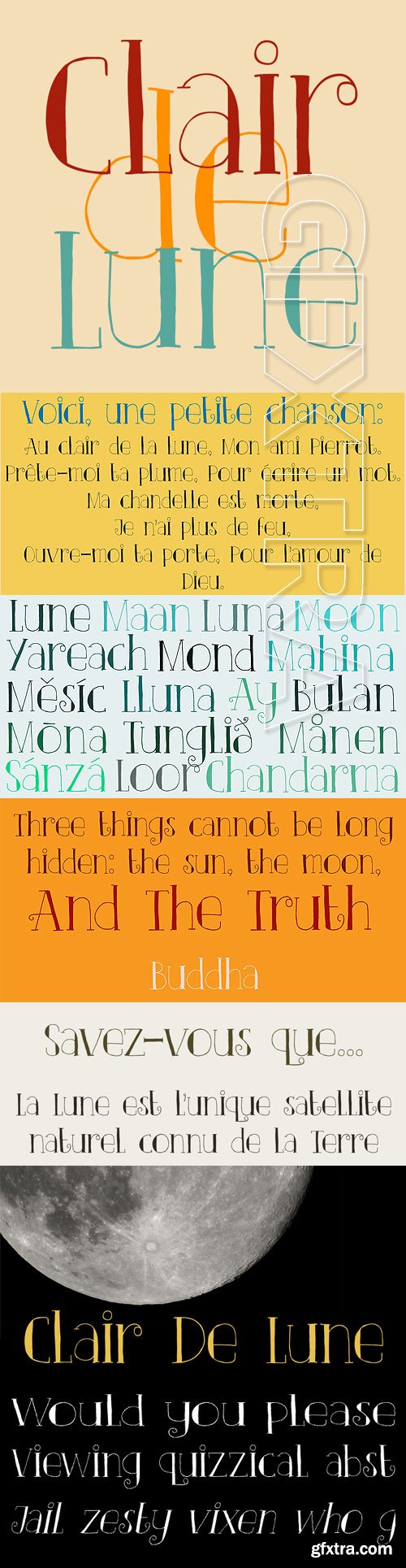
- Clair De Lune is part of the famous Suite Bergamasque, written by Claude Debussy in 1890, and published in 1905. It means Moonlight in French, a kind of romantic name. The name is exactly what I had in mind for this übercute font. Clair De Lune can be used to design postcards and posters, liven up websites and give your designs an overall happy feel. Clair De Lune was handmade using a 0.5 pen, eco friendly Italian paper and a wooden kitchen table.
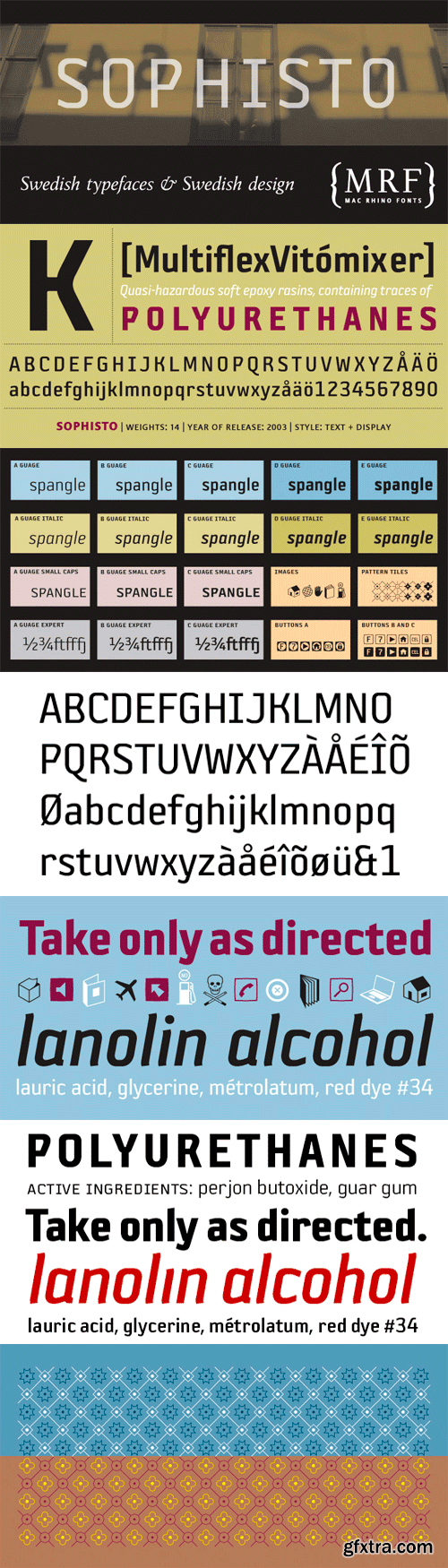
A successful collaboration between MRF and Psy/Ops Type Foundry. In search for a Sans Serif with a significant and strong character but still ”low-key” enough to be functional for most areas, Sophisto finally grew into an extensive family of 21 parts. Made carefully to fit both text- and display solutions. The buttons, images and patterns makes it even more complete as a family.
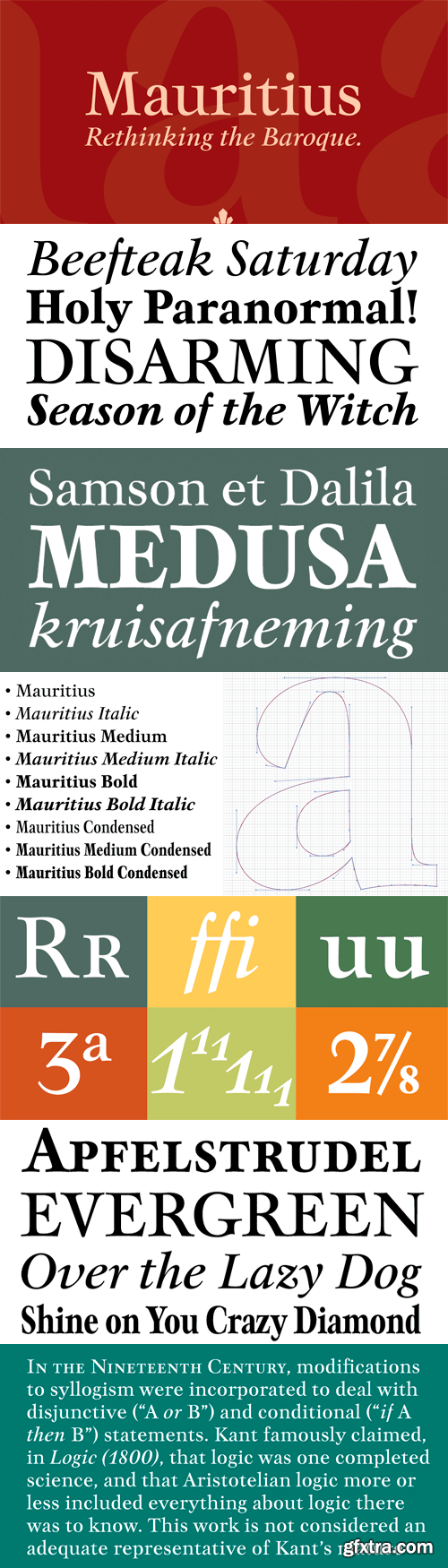
Ten years or so after his unique treatment of Garalde design with Trump Mediaeval, Georg Trump took on the transitional genre with Mauritius, which was to be his last typeface. He started working on it in 1965. The Stuttgart-based Weber foundry published a pamphlet previewing it under the name Barock-Antiqua in 1967, then announced the availability of the metal types (a roman, a bold and an italic) a year later. The global printing industry was already in third gear with cold type technology, so there weren't that many takers, and Weber closed its doors after more than 140 years in business. Subsequently, Trump’s swan song was unfairly overlooked by typography historians and practitioners. It never made it to film technology or scalable fonts. Thus, one of the most original text faces ever made, done by one of the most influential German type designers of the 20th century, was buried under decades of multiple technology shifts and fading records. The metal cuts of Mauritius seem to have been rushed in Weber’s desperation to stay afloat. So the only impressions left of the metal type, the sole records remaining of this design, show substantial problems. Some can be attributed to technological limitations, but some issues in colour, precision and fitting are also quite apparent, particularly in Mauritius Kursiv, the italic metal cut.
The font Marcel is named in honor of Marcel Heuzé, a Frenchman who was conscripted into labor during World War II. During the months Marcel was in Germany, he wrote letters to his beloved wife and daughters back home in rural France. Marcel’s letters contain rare first-person testimony of day-to-day survival within a labor camp, along with the most beautiful expressions of love imaginable. The letters — stained and scarred with censor marks — were the original source documents used by designer Carolyn Porter to create a script font that retains the expressive character of Marcel Heuzé’s original handwriting. The result of years of research and design work, Marcel Script features more than 1300 glyphs. The font is a highly readable running script that includes textural details that capture the look of ink on paper. The font Marcel Caps is a hand-lettered titling face intended as a companion to the Script. Marcel EuroPost One and Two each feature more than 200 postmarks, cancellation and censor marks, and other embellishments found on historical letters and documents.
This slab serif font is inspired by European industrial, machine-made letters. It looks rational and geometric, but optically corrected and balanced. As the name says this font face is designed to be used by mostly for posters, headlines, visual identities and short texts. Font was created for Celebration of the 5 year anniversary of Design Studio Box from the city of Kragujevac (KG), the industrial city of Serbia. Posterizer KG contains all the Latin and Cyrillic glyphs.
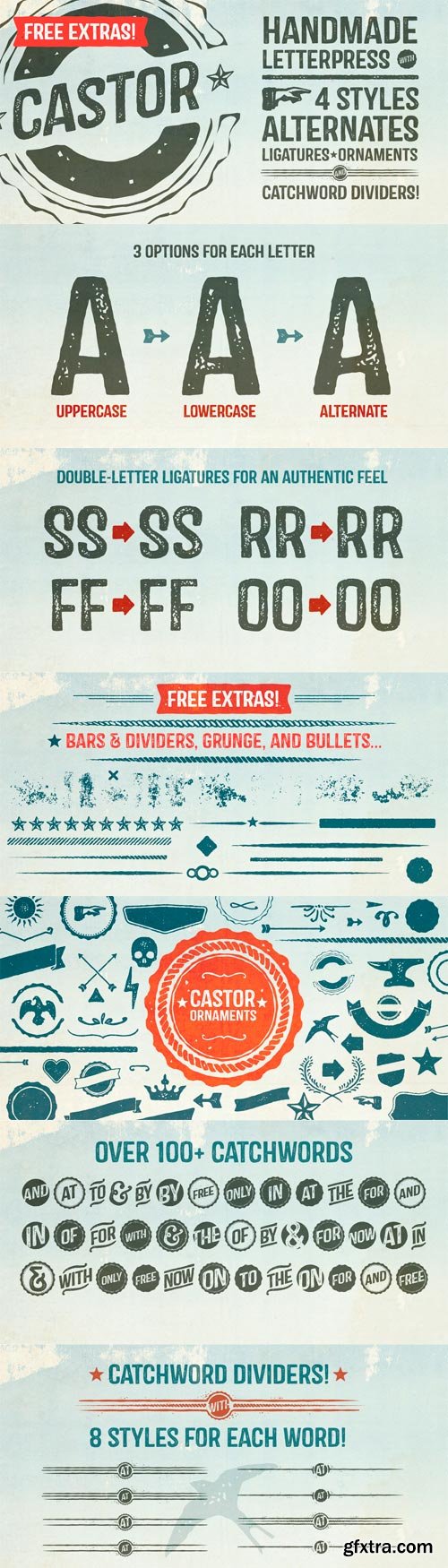
Castor is a woodtype and letterpress hybrid based on grotesque letterforms. It’s a vintage decorative bold distressed display with 3 options for each letter; Uppercase, lowercase, and alternates. Castor comes complete with 4 styles plus catchwords, unique ‘catchword dividers’ (horizontal rules), ornaments, as well as a free set of extras! (grunge, dividers and bullets) The catchwords, ornaments, and dividers are designed to compliment the font family giving it a ton of diversity, and the designer unlimited creative options. Opentype features include alternate letters and numbers, double letter ligatures for realism, subscript numbers,and superscript numbers.
Station is a bold headline typeface inspired by old Train Station type and graphics. It can be used in a modern and retro way, and its different patterns and styles give a unique look to any design.
Kahlo is a latin style hipster typography, to is a formal and elegant option for designers. Is a font with four weights and italics, initial capital letters, have some alternate characters and ending. Is a typeface best suitable for magazine headlines, posters, logos, cosmetics packaging, advertising etc. Languages include: Basic Latin, Western European, Euro, Catalan, Baltic, Turkish, Central European, Romanian and Pan Africa Latin.
Mirabelle from Magpie Paper Works is a family of four hand-lettered fonts designed to coordinate with each other or stand alone as display faces. Each font was created with a felt-tipped pen & ink, and includes a full set of capital and lowercase letters, as well as multi-lingual support, currency figures, numerals, and punctuation.
Did you just get hired to redesign the logo of the nickel arcade around the corner from that used Buick dealership? Use Red Benny to give that arcade the italicized, uniwidth, design they’ve deserved all along. Don’t want to waste time creating silly ligatures? Yeah, Benny’s got your back. Don’t believe me? Type out “Dingleberry,” and you’ll see what I mean.
An Adobe Originals design first released in 1992, Myriad has become popular for both text and display composition. As an OpenType release, Myriad Pro expands this sans serif family to include Greek and Cyrillic glyphs, as well as adding oldstyle figures and improving support for Latin-based languages. The full Myriad Pro family includes condensed, normal, and extended widths in a full range of weights. Designed by Robert Slimbach & Carol Twombly with Fred Brady & Christopher Slye, Myriad has a warmth and readability that result from the humanistic treatment of letter proportions and design detail. Myriad Pro’s clean open shapes, precise letter fit, and extensive kerning pairs make this unified family of roman and italic an excellent choice for text typography that is comfortable to read, while the wide variety of weights and widths in the family provide a generous creative palette for even the most demanding display typography.
Most fonts include uppercase and lowercase letters. Some experimentally-minded designers have proposed unicase typefaces as well: rather than having two different forms for a given letter, unicase fonts have one, chosen from the upper- or lowercase forms. Ambicase Modern takes the next step, offering not "either/or", but rather "both/and". Each letter in Ambicase Modern is a combination of its traditional upper- and lowercase forms, in a modern (didone) style. The inventive, hybrid forms that result are intriguing and handsome. Ambicase Modern stands out as a carefully crafted experimental font: its eccentric forms do not hinder its readability. It is suitable for high-style display settings. Ambicase Modern offers a large character set and extensive OpenType features. Most notably, in modern OpenType-aware applications, Ambicase Modern can be set in swash mode, which features sophisticated decorative flourishes that differ depending on whether the letter is at the beginning, middle, or end of a word. Ambicase Modern is available in two optical sizes: Regular and Poster. At very large sizes, the Poster cut, with its finer details, is recommended.